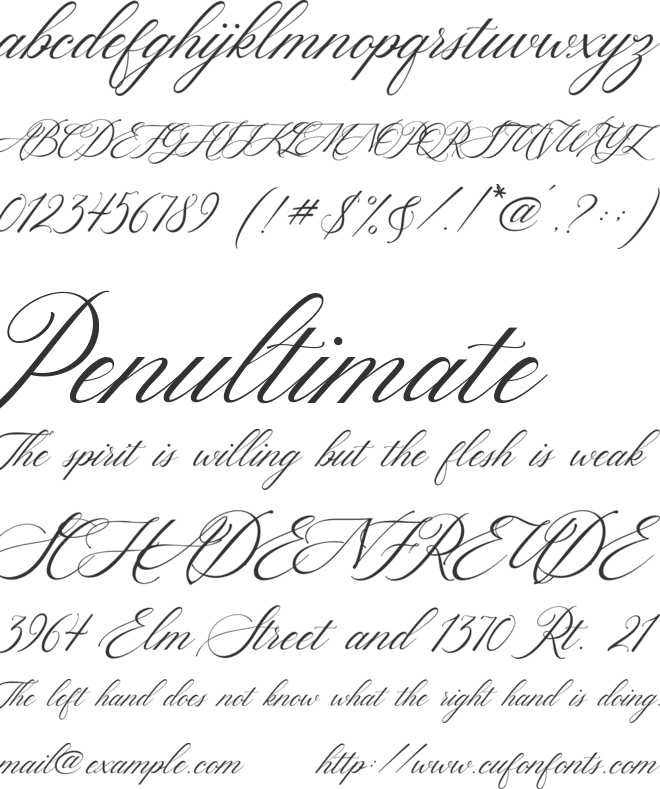
Hello Bride Script Font
Redefine elegance with Hello Bride!
This lovely font "Hello Bride" comes with classy style of calligraphy. This fonts is one of the most elegant fonts for wedding or engagement ceremony. Especially if it's an luxury ceremony.
Hello Bride Font has huge ligatures & alternative characters. This Font is great for logo, printed quotes, badge, insignia, packaging, headline, poster, t-shirt/apparel, greeting card, and wedding invitation, & etc.
Hello Bride Script font preview